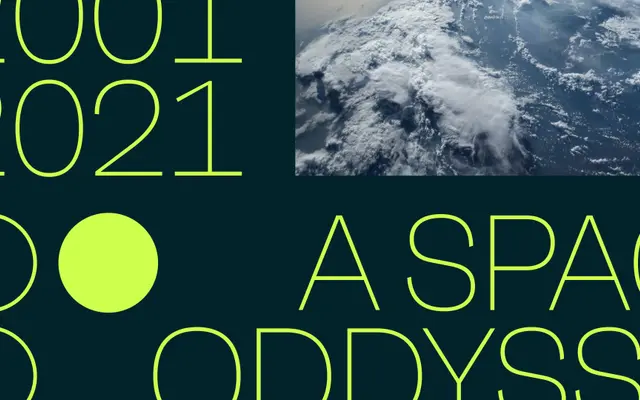
Neue Faktum
A clean geometric sans in eight weights with matching italics, offering a range of OpenType alternates for single-storey and alternate letterforms.
Running from Thin to ExtraBold with italic counterparts across all weights, the family covers broad weight range for both text and display work. A generous set of OpenType features includes alternate forms for 'a', 'g', 'y', 'J', 'G', 'Q' and arrows, alongside tabular and proportional figures, fractions and case-sensitive forms. The result is a workmanlike geometric sans suited to branding, editorial and UI applications where a neutral but considered voice is required.
The clean, rational letterforms and alternate single-storey 'a' and 'g' options point to a geometric sans tradition, typical of contemporary neutral grotesques with geometric underpinnings.